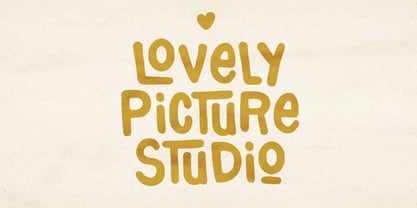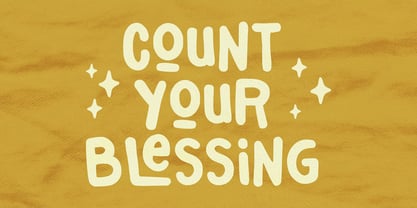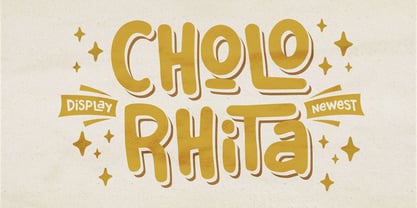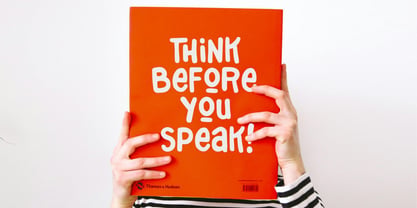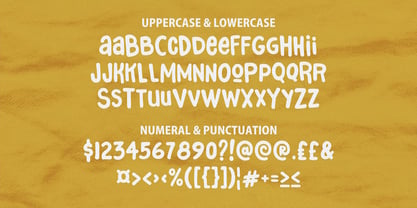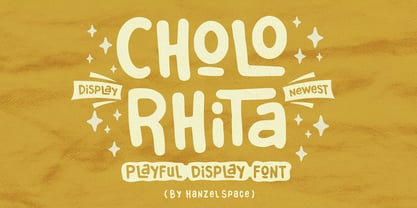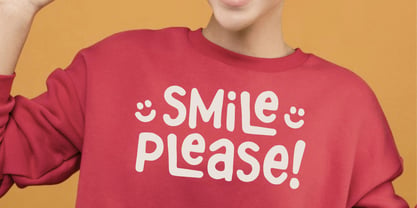
Cholo Rhita
by Hanzel Space
The Cholo Rhita Font Family was designed by Hanief Farandi and published by Hanzel Space. Cholo Rhita contains 1 styles. More about this family
Cholo Rhita is a Kids Display Font. This cheerful and easy-to-read typeface is designed to convey a playful and playful feel. This font is perfect for making a strong statement in your designs.
Features:
• Uppercase & Lowercase
• Numerals & Punctuation
• Ligatures
• Multilanguage Supports
Designers: Hanief Farandi
Foundry: Hanzel Space
Hanzel Space is the Indonesia based type and graphic design studio of Hanief Farandi. He focused his love of all things typography and hand lettering into Hanzel Space where he create handmade typefaces that are versatile and modern, .We do font design with seriousness to produce original works. Our design process starts from a sketch of an idea and become a font product by digitizing it.We produce fonts with market research styles that are trending and that are in high demand (popular) in several marketplaces